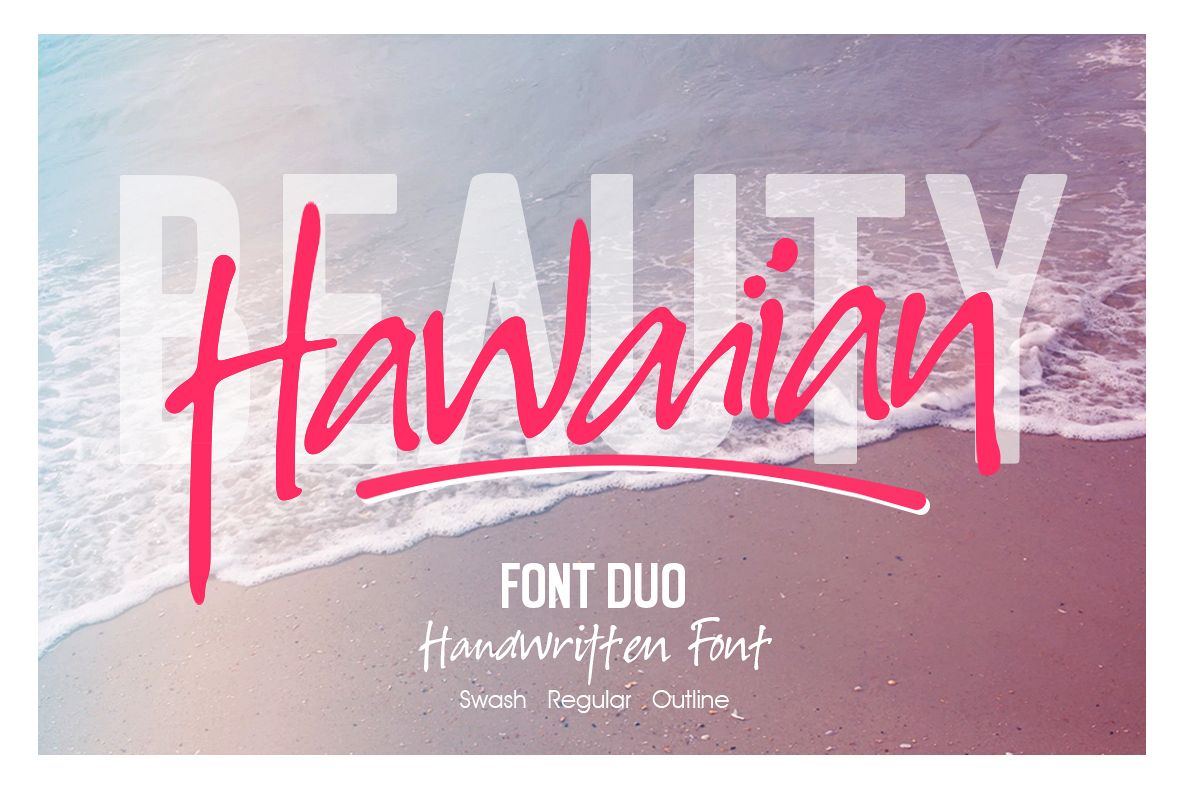
Hawaiian Font Duo
Hawaiian Caps
HawaiianSwash
Hawaiian Font Duo may look messy in line, but that's what is highlighted from Hawaiian, although it looks messy Hawaiian still has charm and natural handwriting.
Hawaiian includes uppercase and lowercase letters, numerals, perfect ligature and multilingual for the Hawaiian Script.